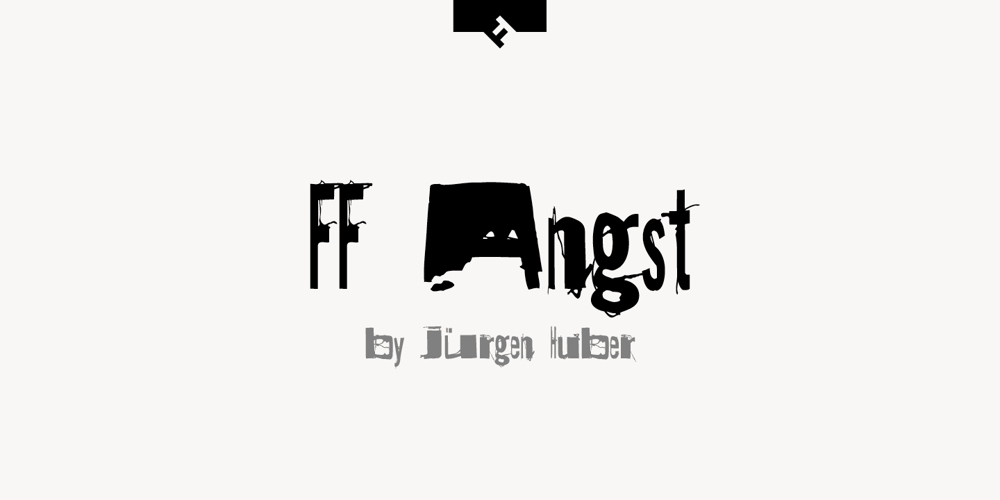
FF Angst Font Family was designed by Jürgen Huber and published by FontFont. FF Angst contains 3 styles and family package options. German type designer Jürgen Huber created this display FontFont in 1996. The family contains 3 weights: Regular, Condensed, and Heavy and is ideally suited for film and tv, music and nightlife, poster and billboards as well as software and gaming. FF Angst provides advanced typographical support with features such as ligatures. It comes with proportional lining figures.